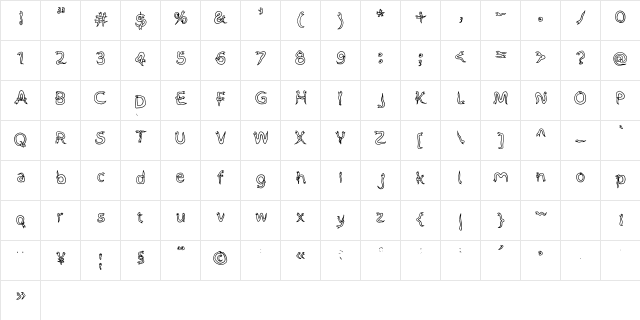
Hebisanfont Regular
Design Context for Hebisanfont Typeface
Hebisanfont is a composed and adaptable typeface that performs quietly and consistently across a wide range of design contexts.